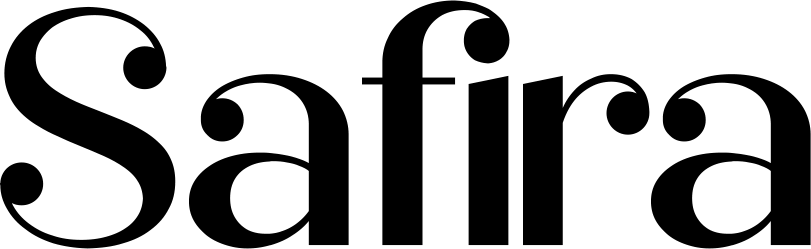
Safira Font
Do you want to make your design stand out by using a unique serif font? Safira is a retro font that comes up with two different styles to give your text variety in the company of trustworthiness and nostalgia sense.
It has a distinct and formal appearance that makes it ideal for printed text, magazines, fashion, and weddings, among other uses. Now it’s time to give it a shot!